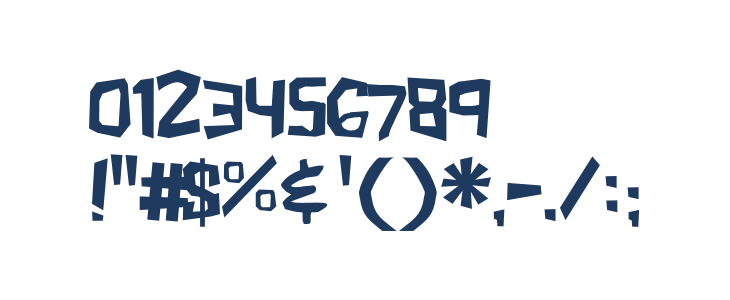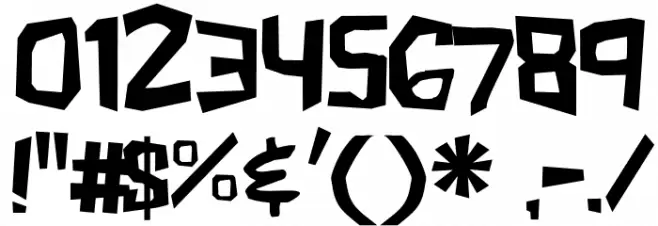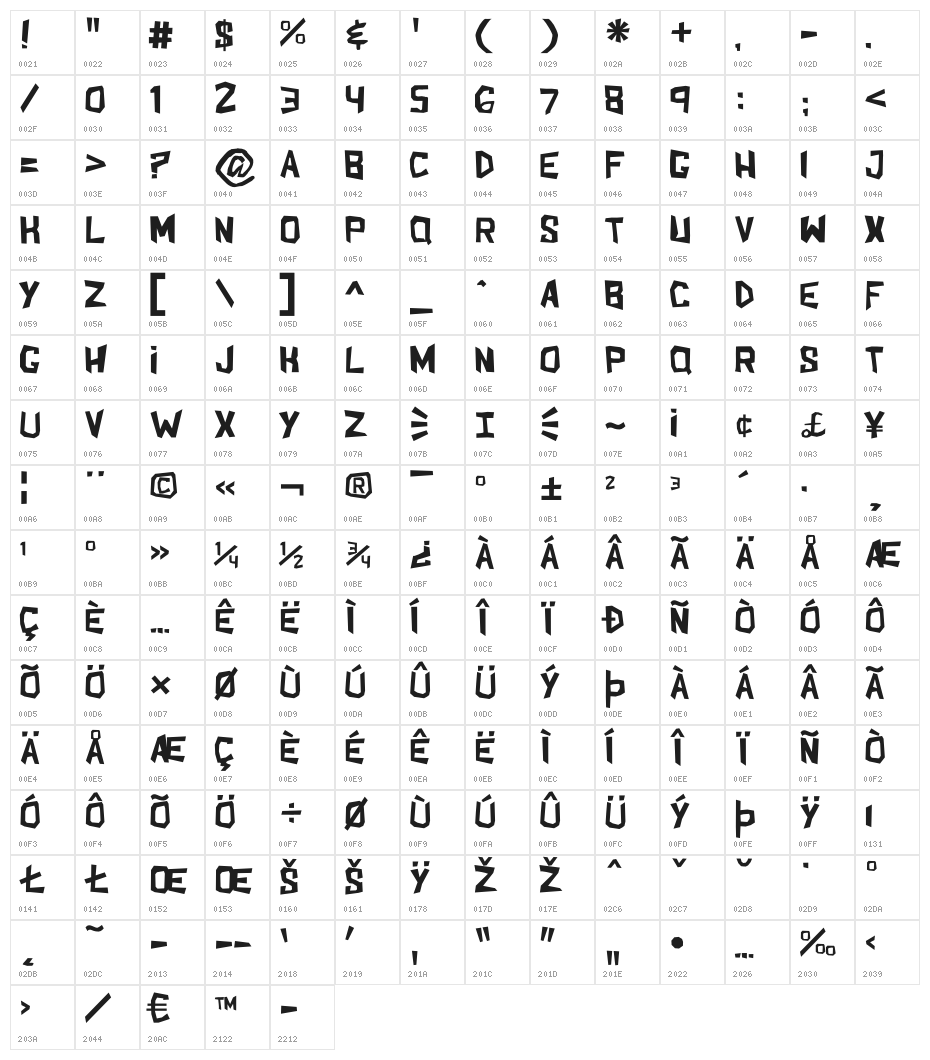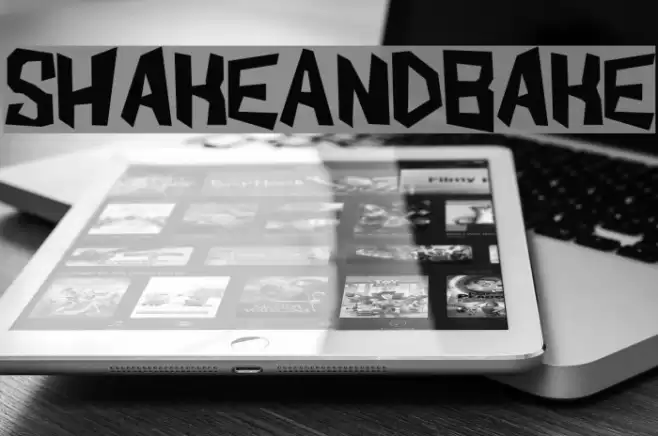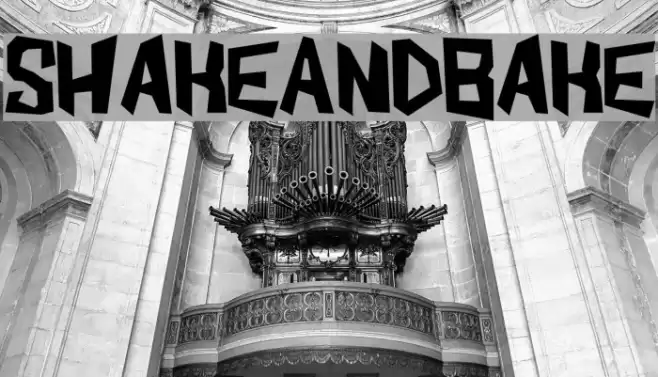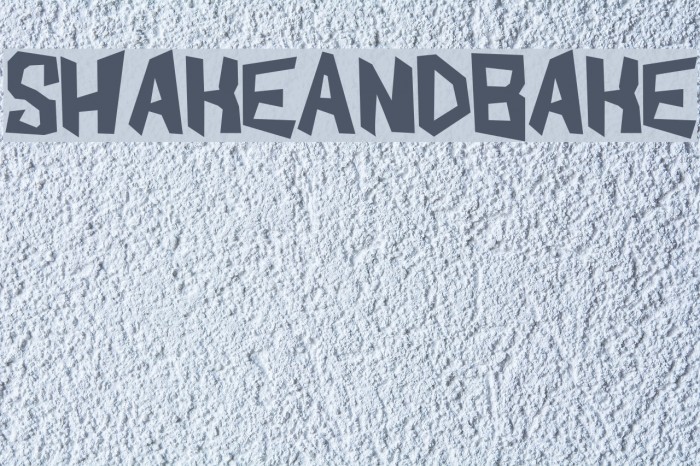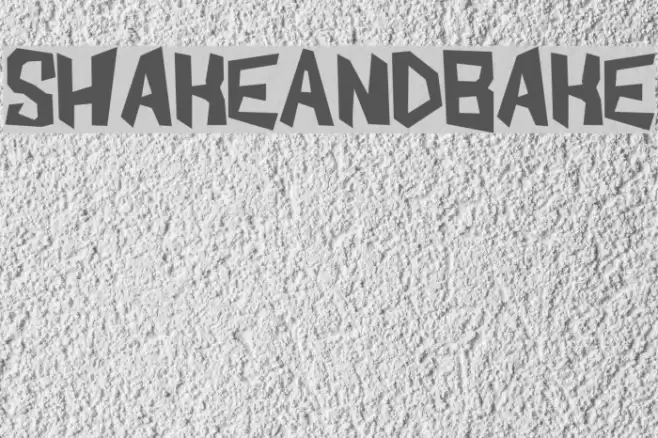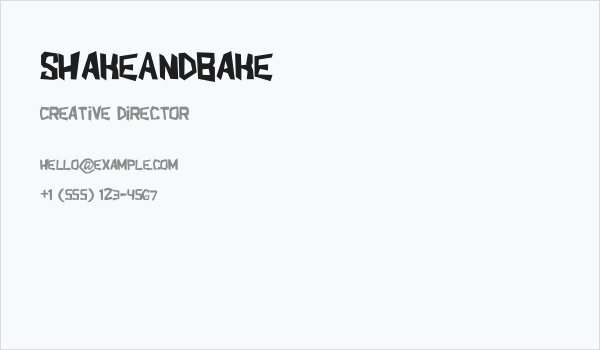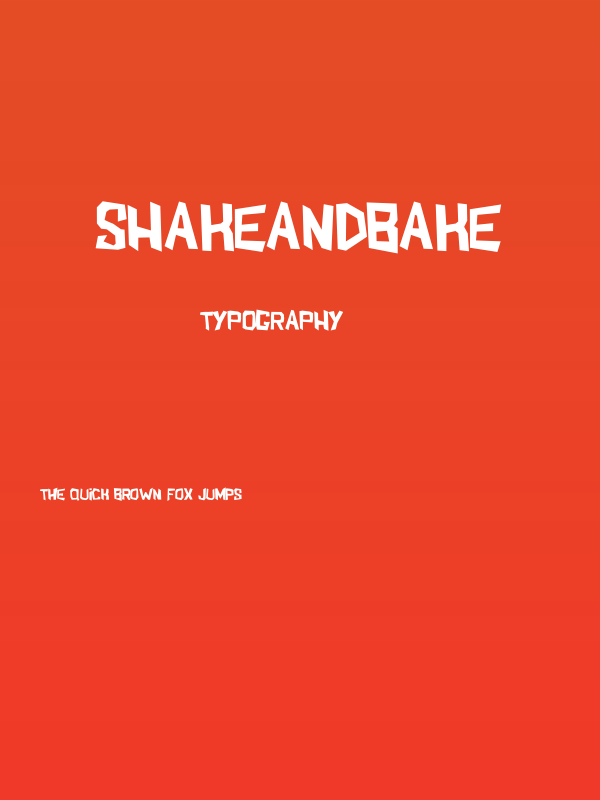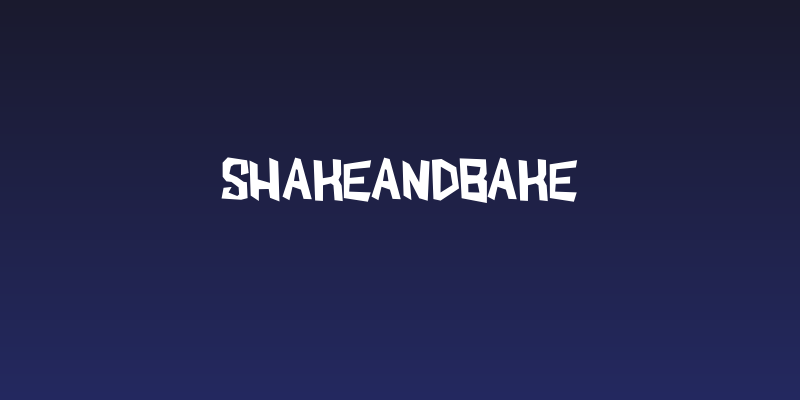
ShakeAndBake Font
ShakeAndBake Description
This font features a bold, angular design with a dynamic and edgy appearance. The characters are crafted with sharp, irregular edges, giving them a hand-cut, almost graffiti-like style. The uppercase and lowercase letters maintain a consistent height, contributing to a cohesive look. The numbers and special characters follow the same aesthetic, ensuring uniformity across all glyphs. This font's unique style makes it stand out, with each character appearing as if it has been individually sculpted. The overall impression is one of energy and movement, perfect for projects that require a bold statement.
| Proposed Projects | Ideal for posters, album covers, streetwear branding, and any project needing a bold, urban aesthetic. |